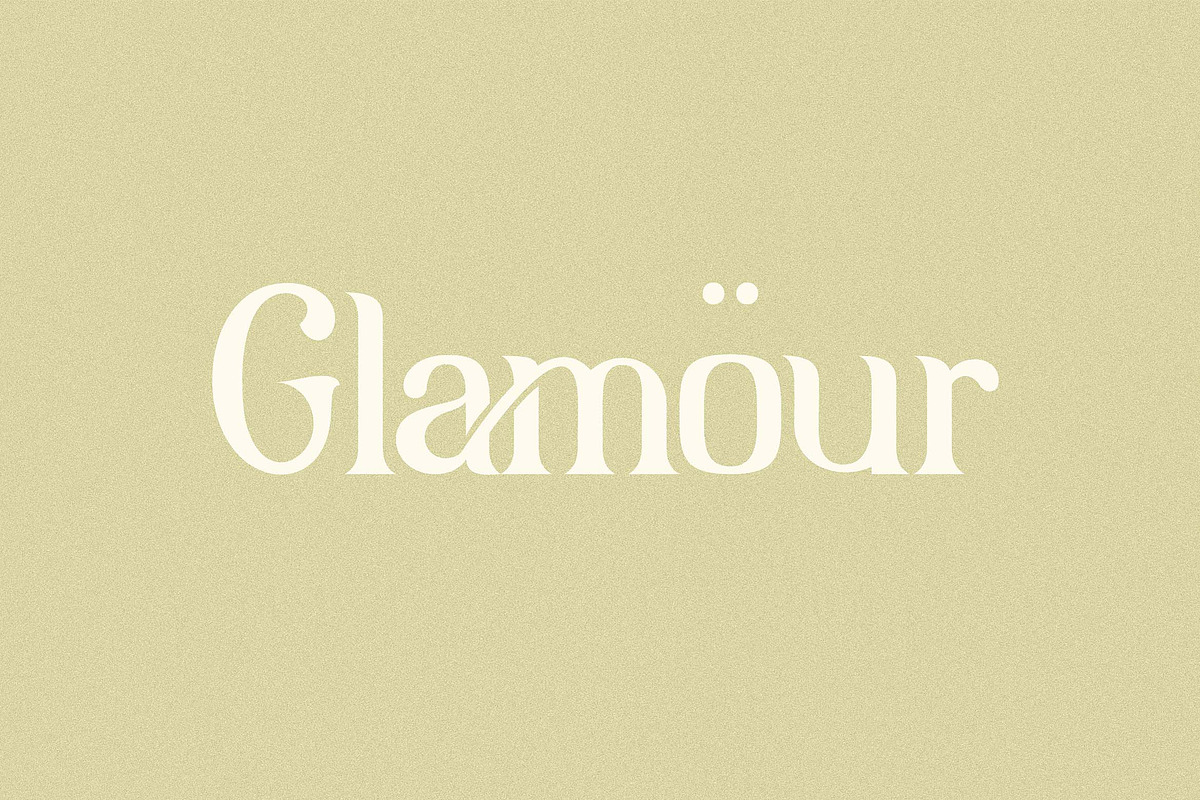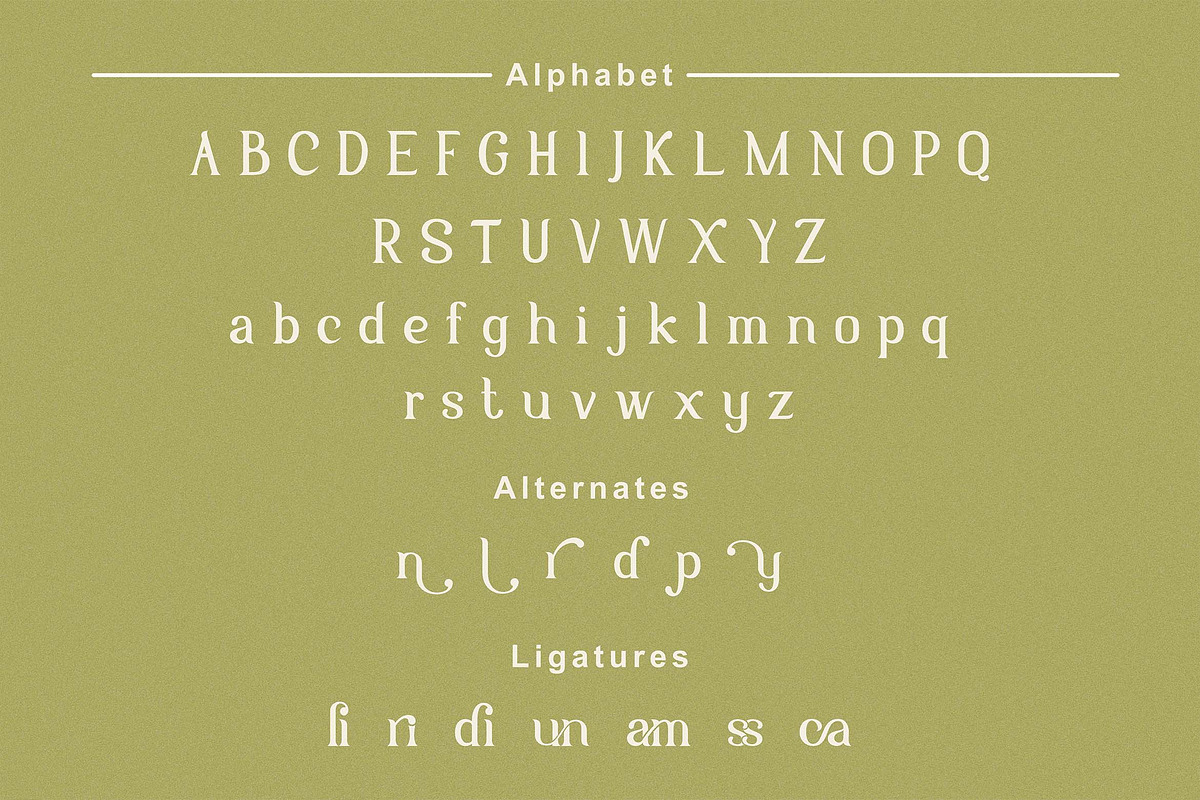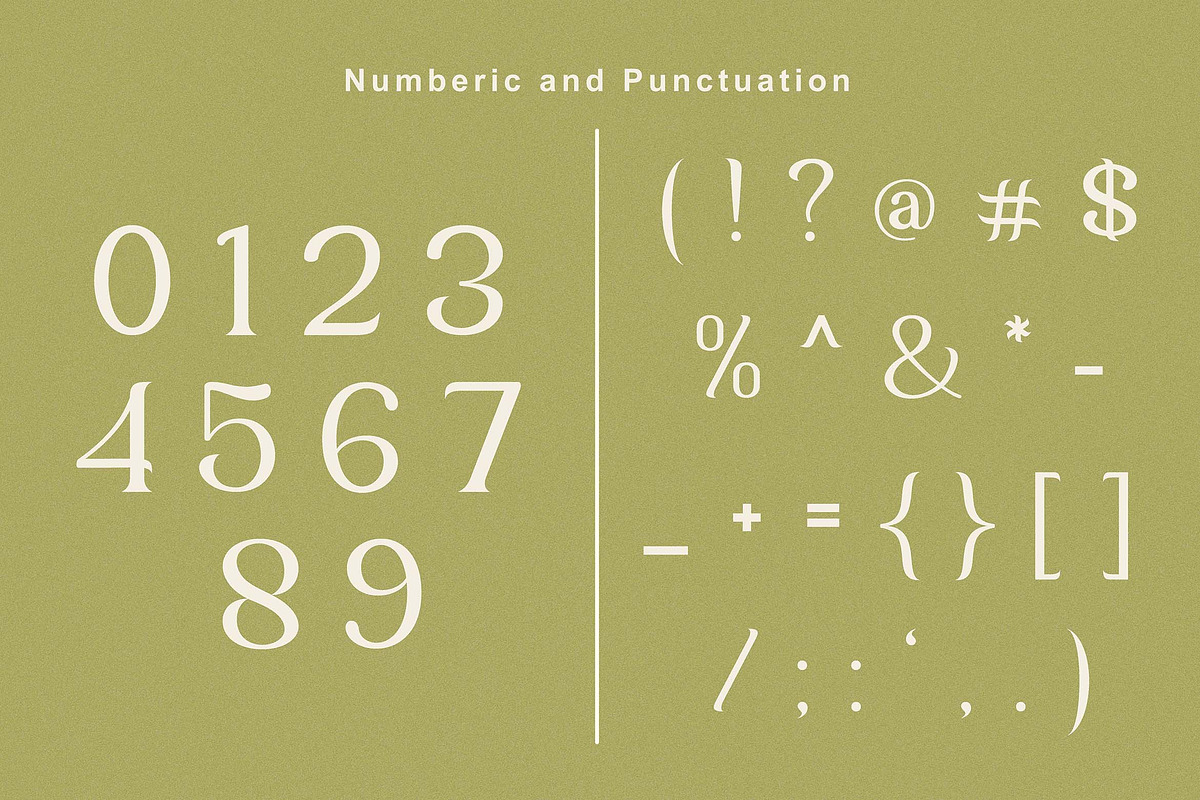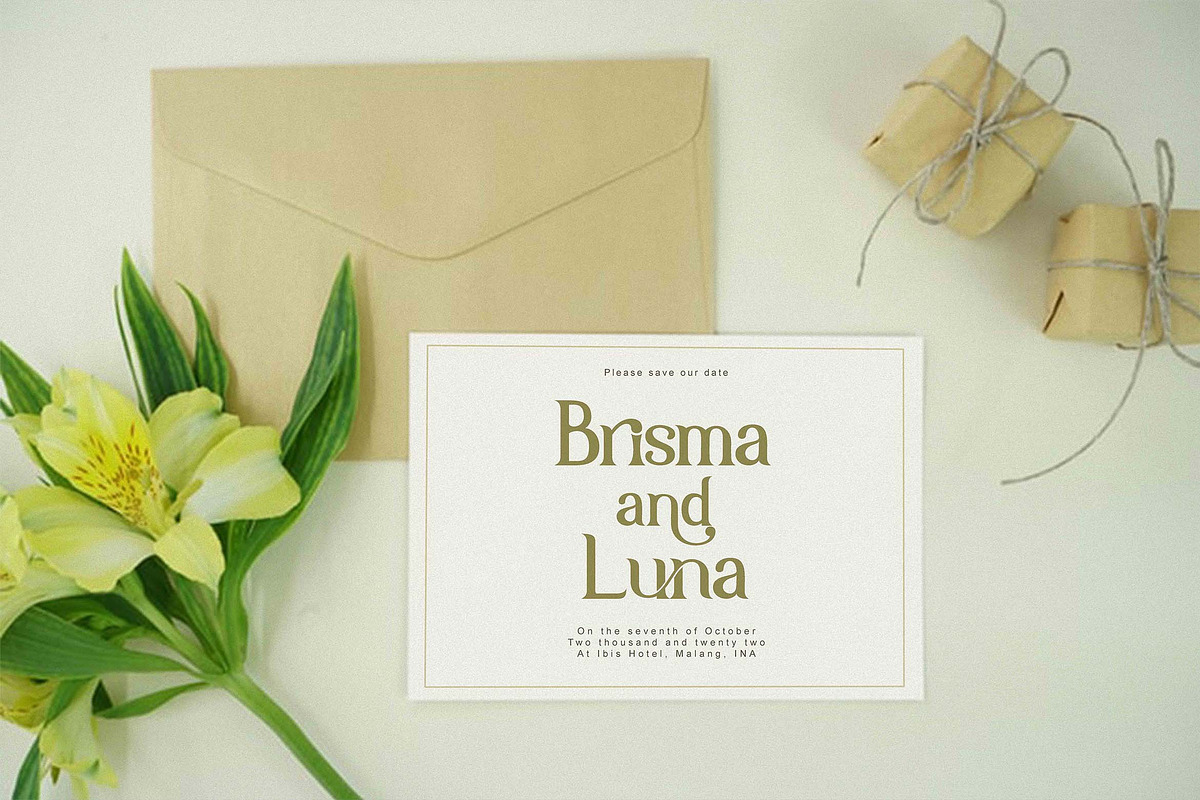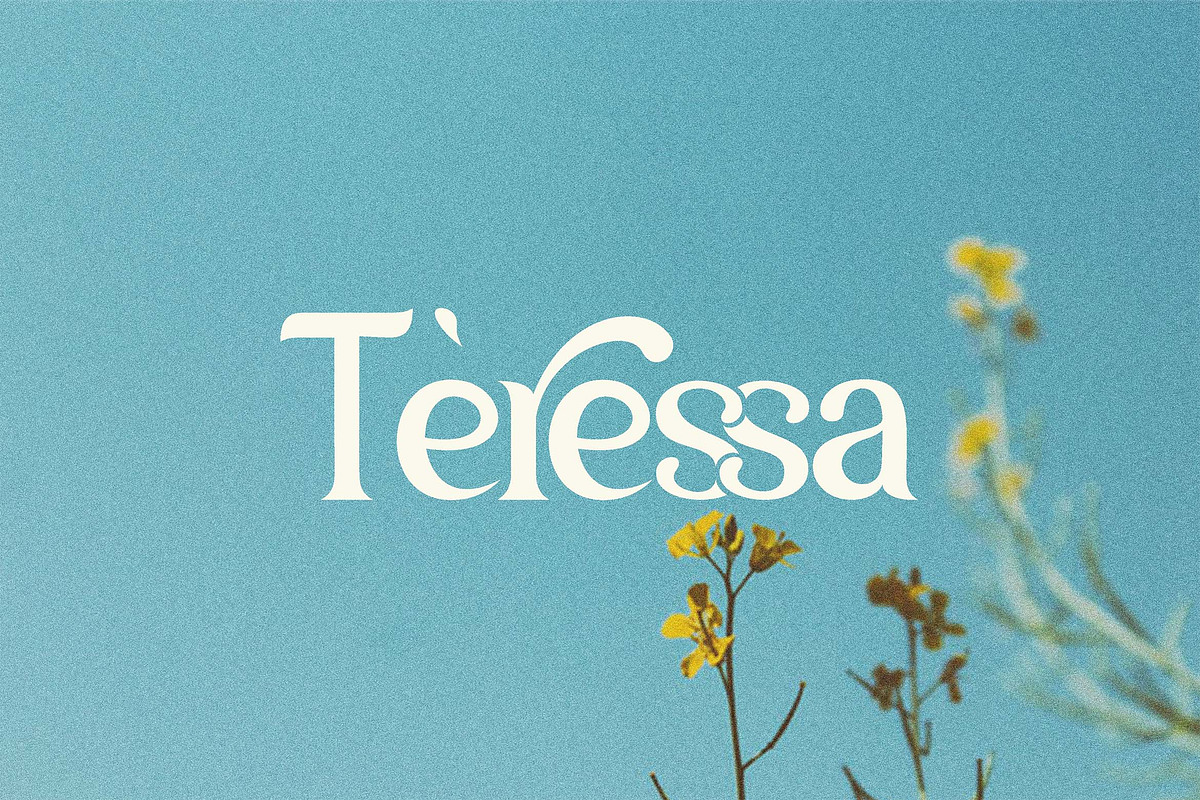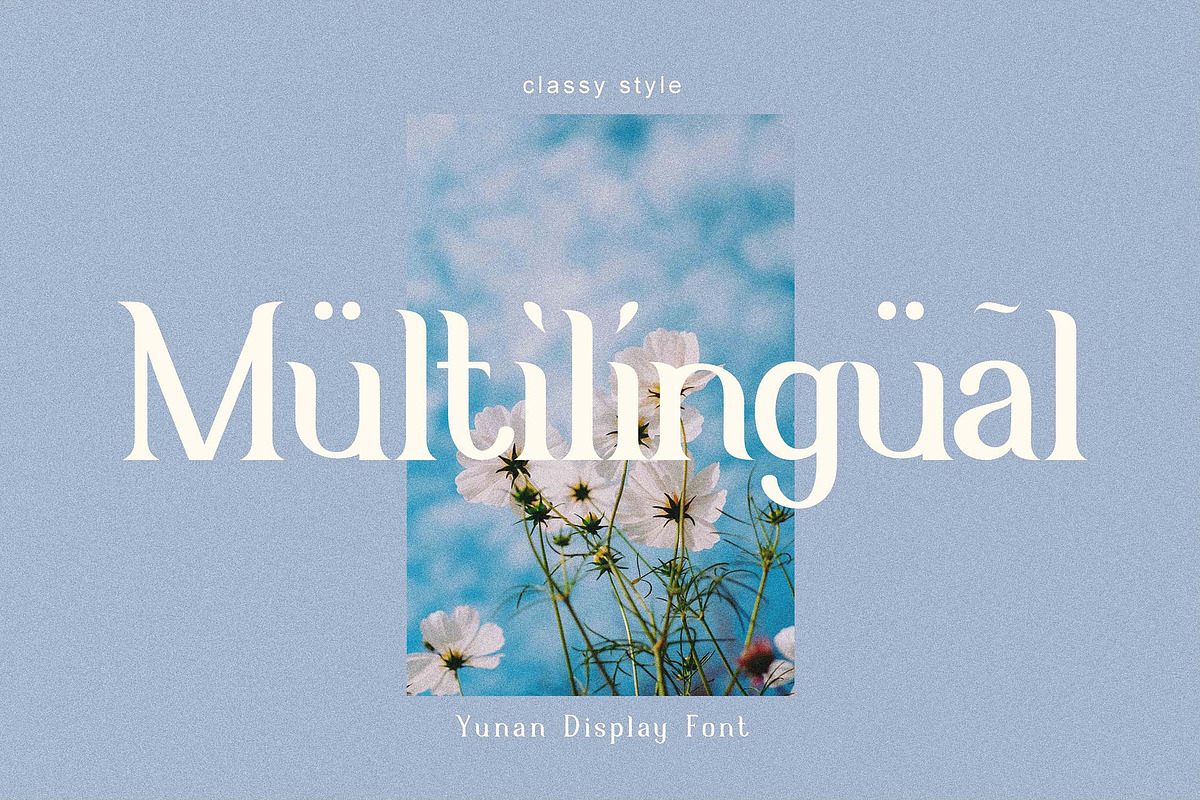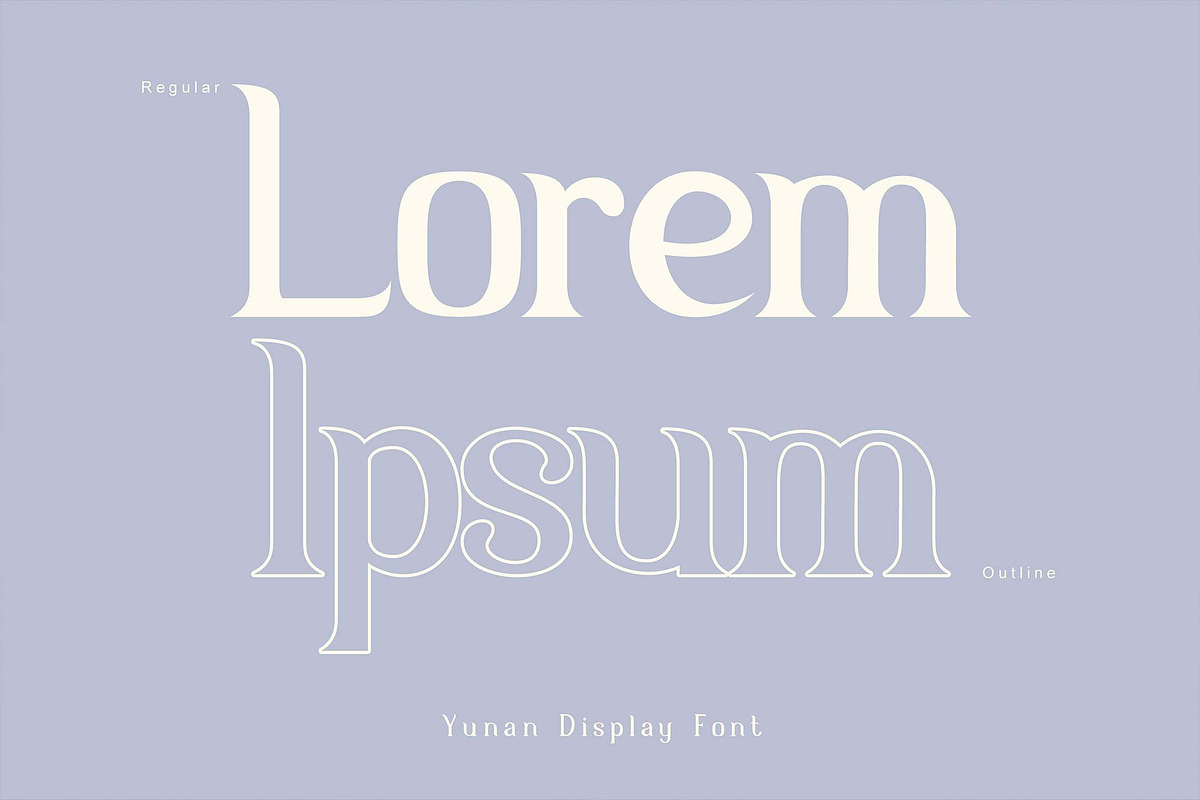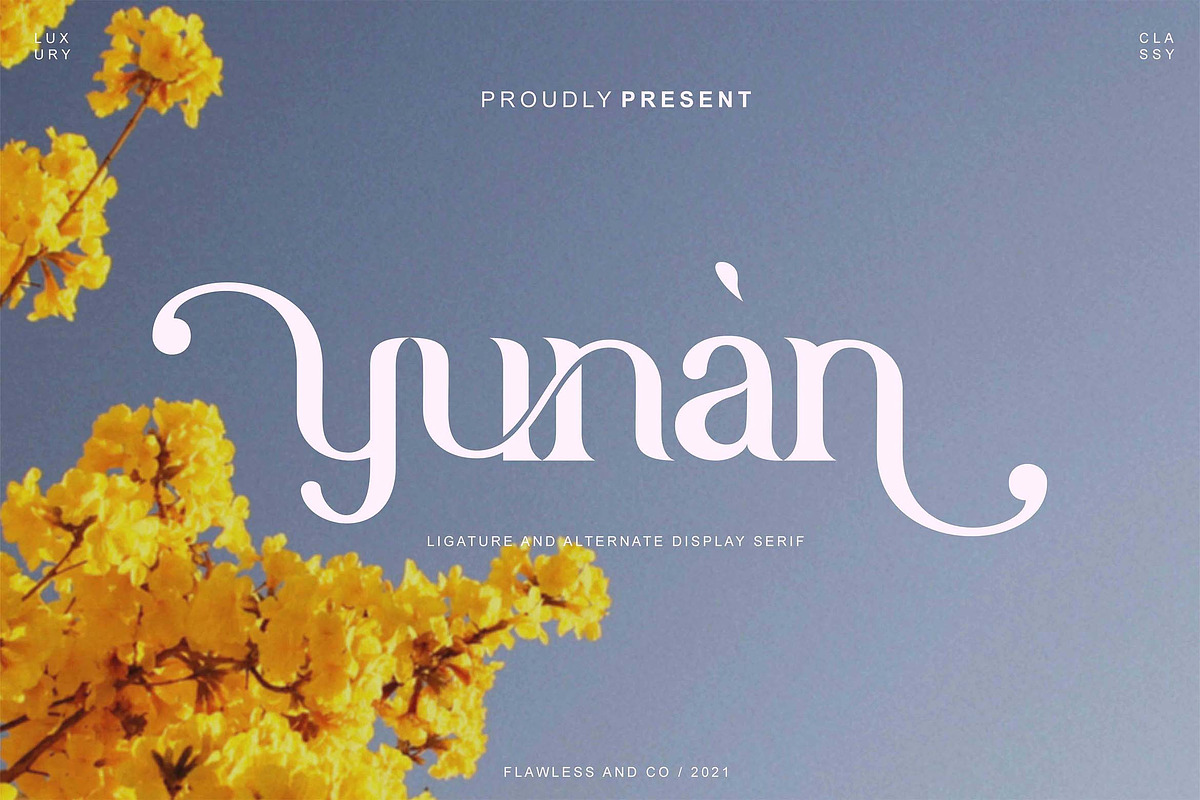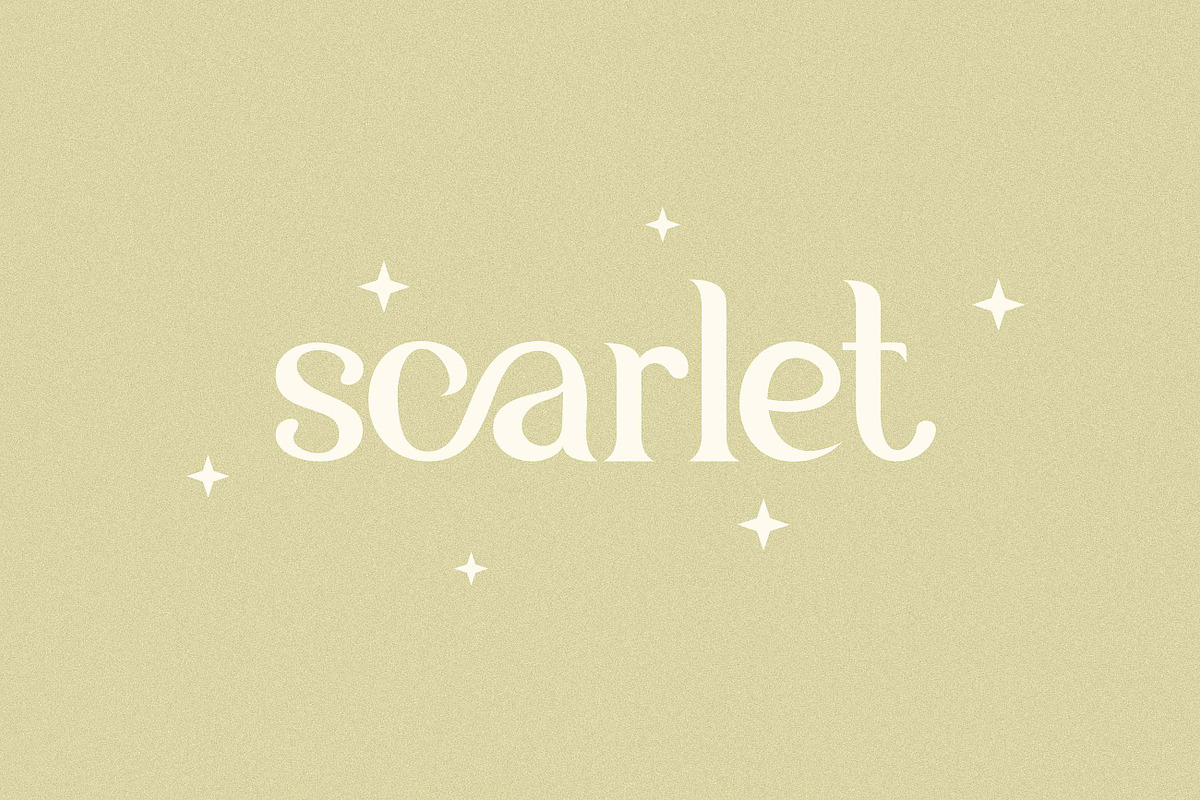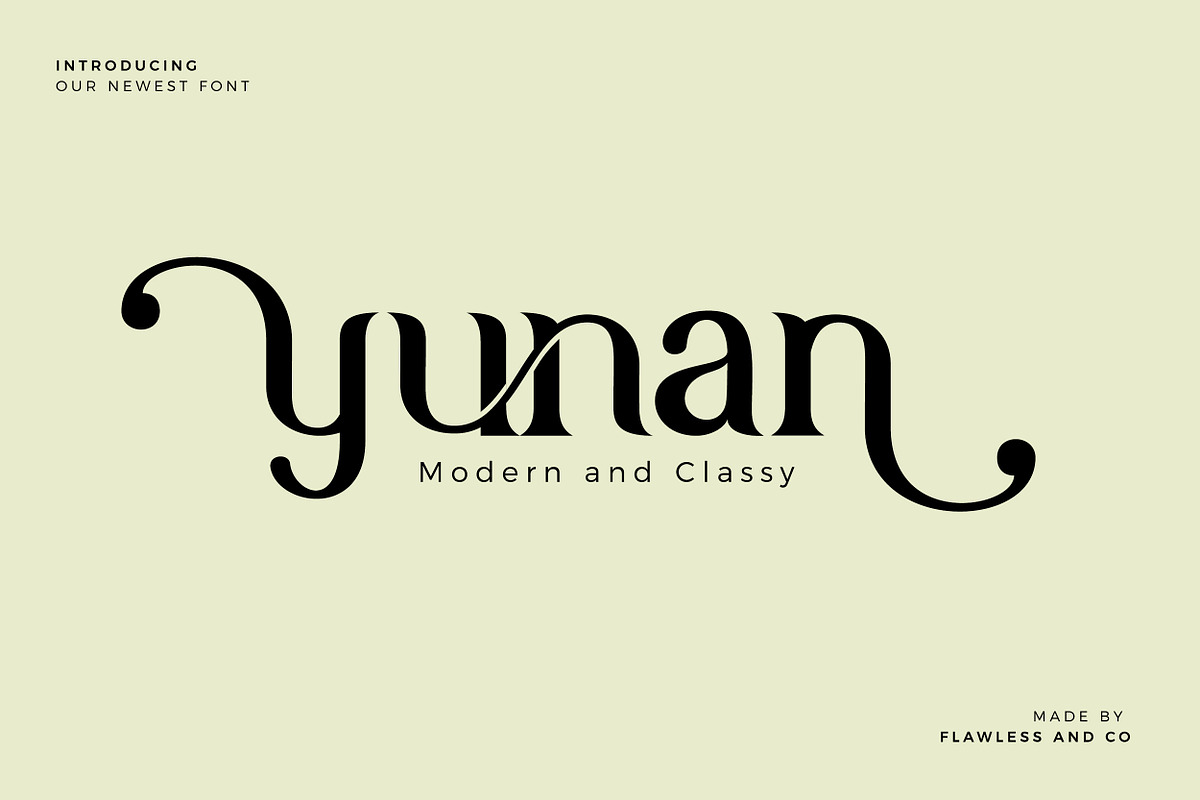
Yunan - Modern and Classy Font
introducing our New Serif font, this font suitable for branding, wedding invitation, logo, handcrafted,
Multilingual Uppercase alphabet A-Z Lowercase alphabet a-z Alternate Character Numbers 0-9 Some punctuation